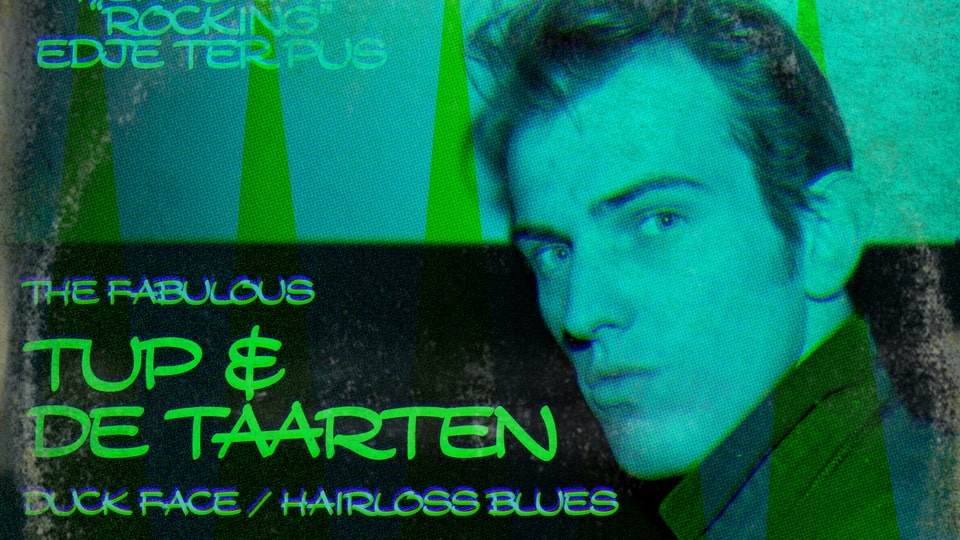
Download Wanders font, a hand crafted typeface based on the authentic handwriting. Each character carries the marks of an author’s hand, allowing you to infuse your text with a unique and natural aesthetic.
Designer: Tup Wanders